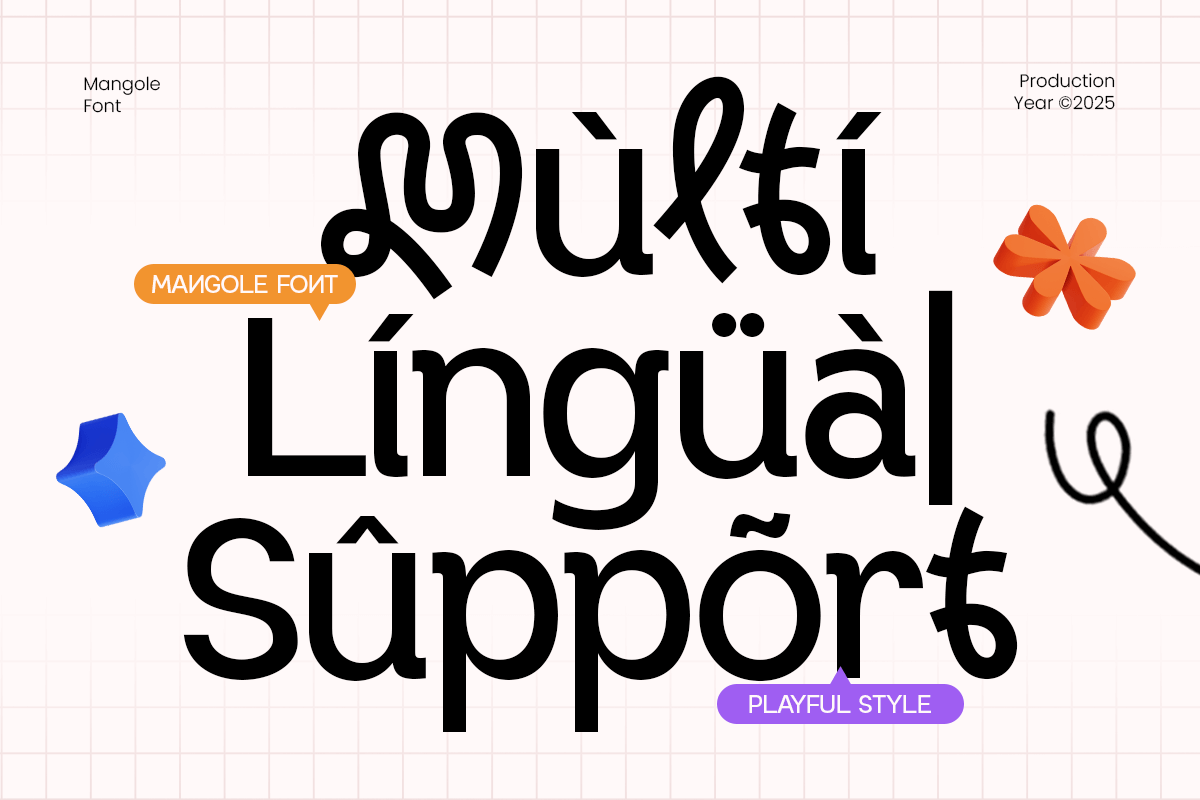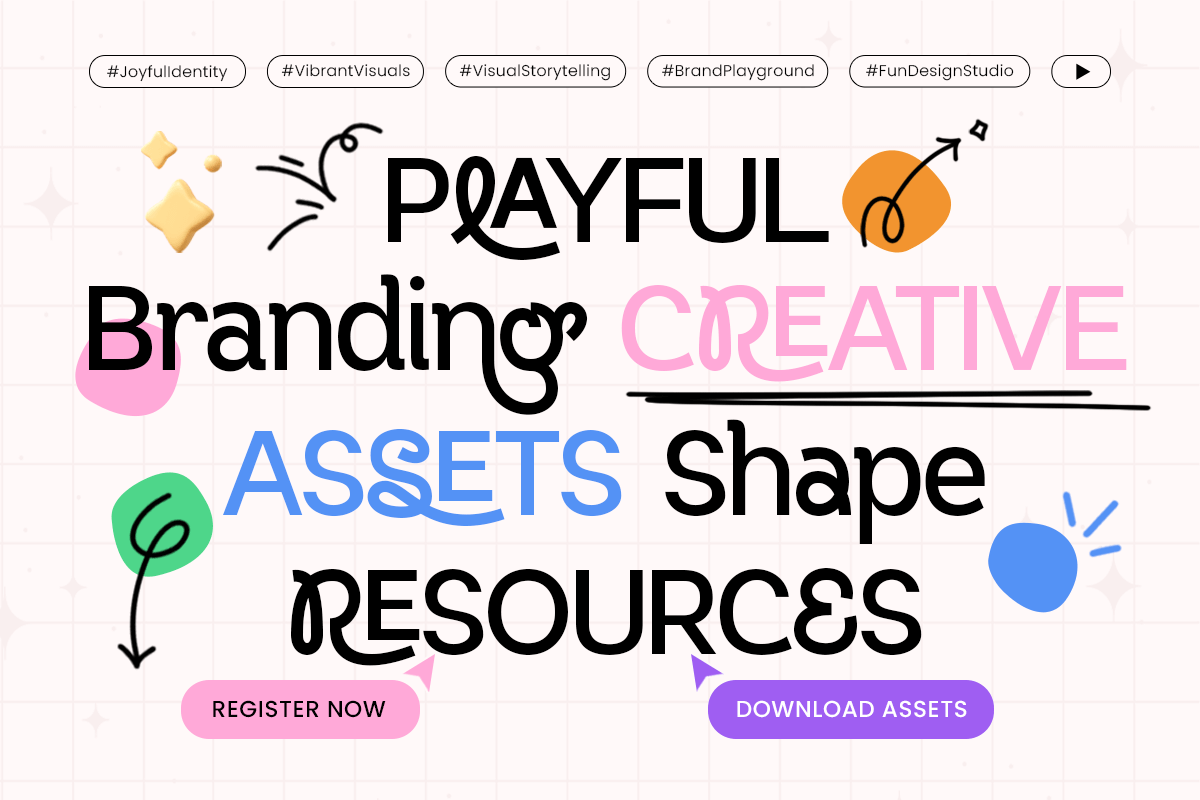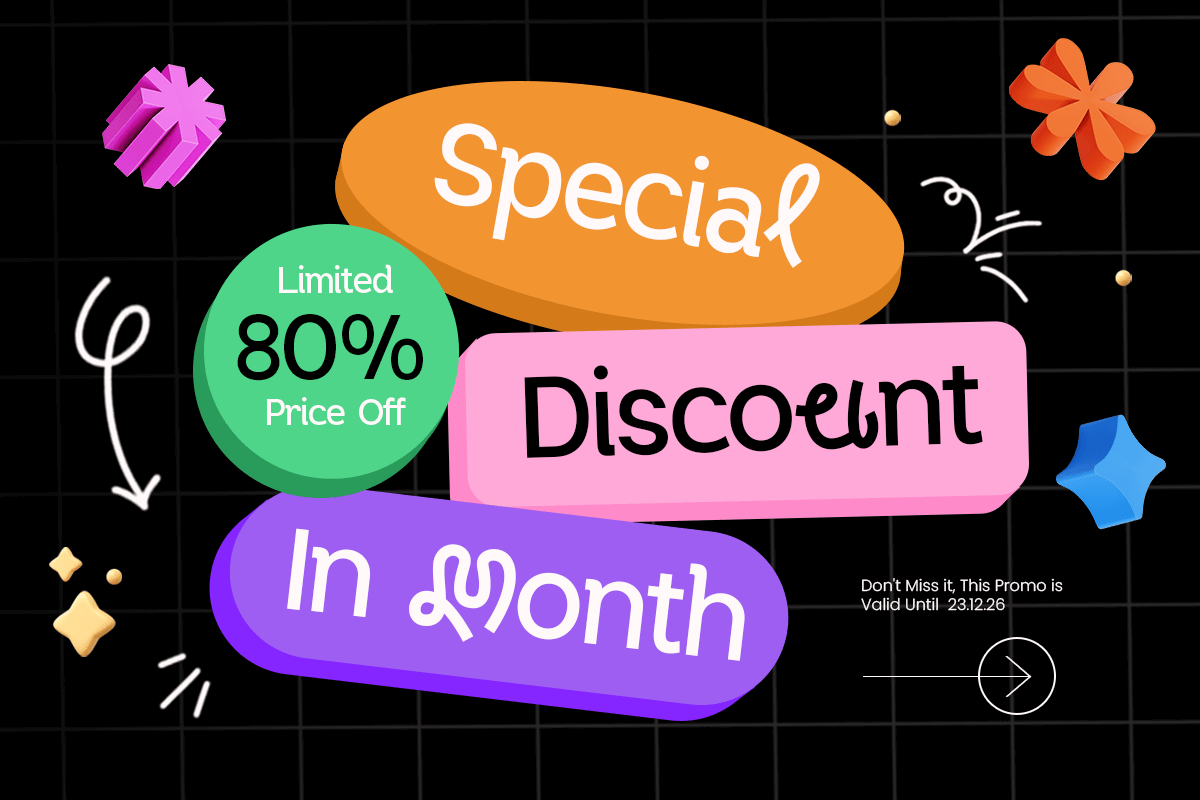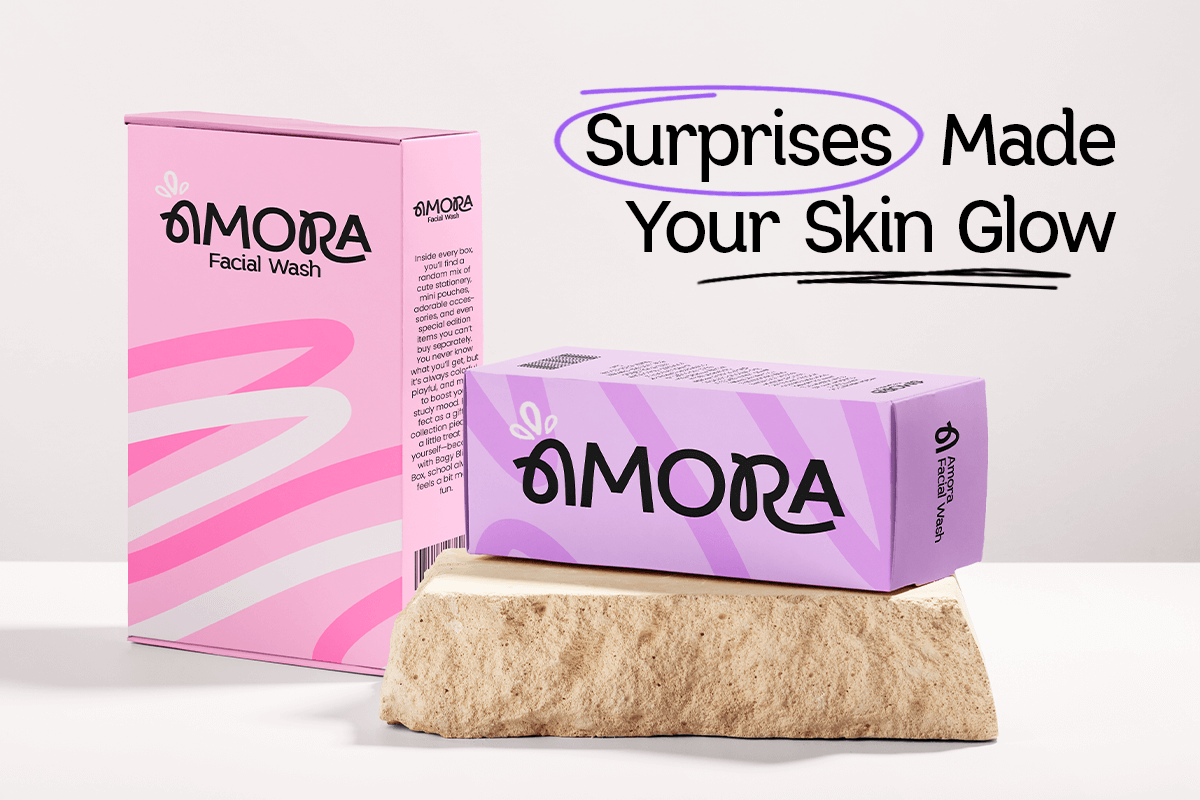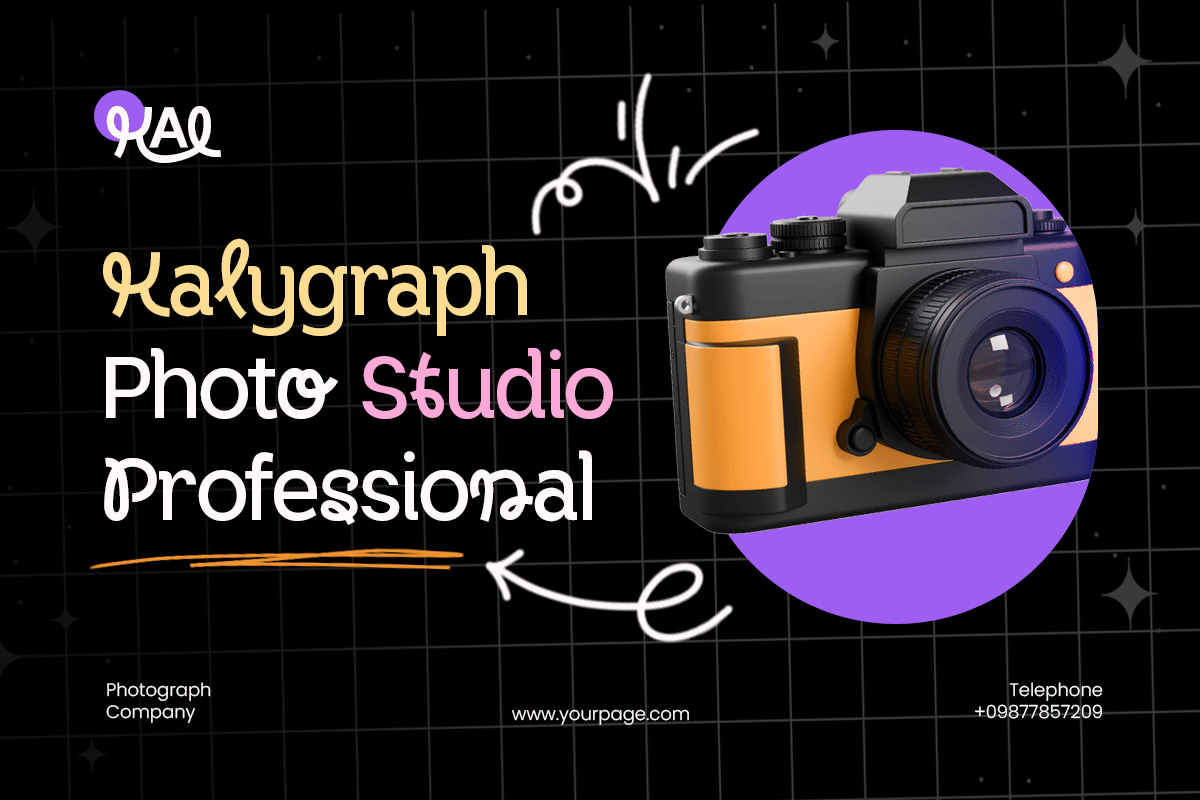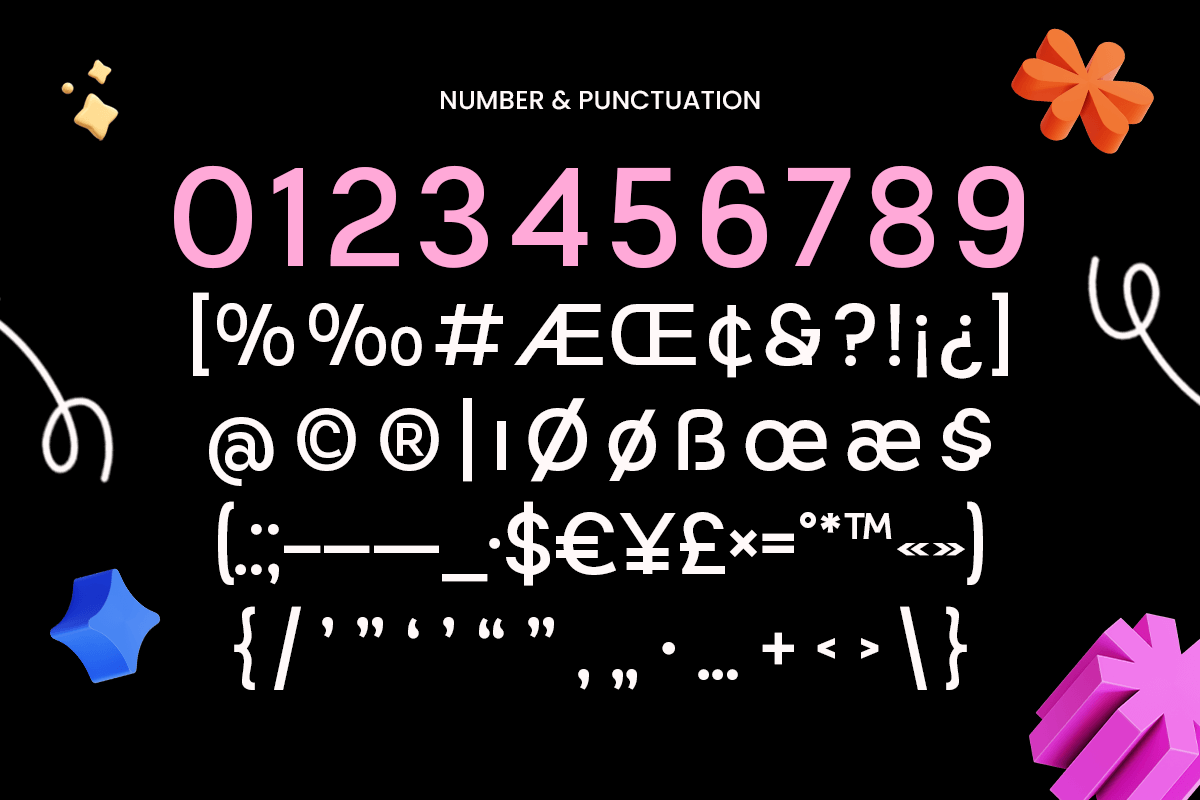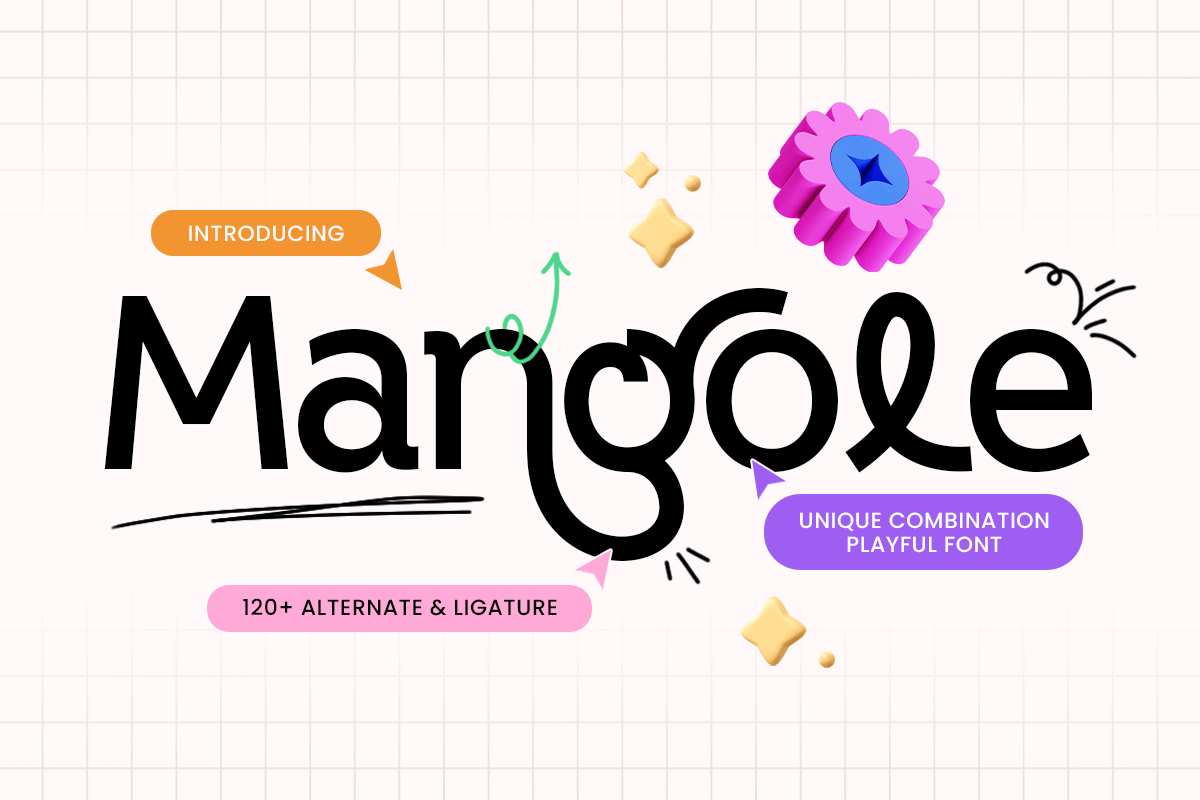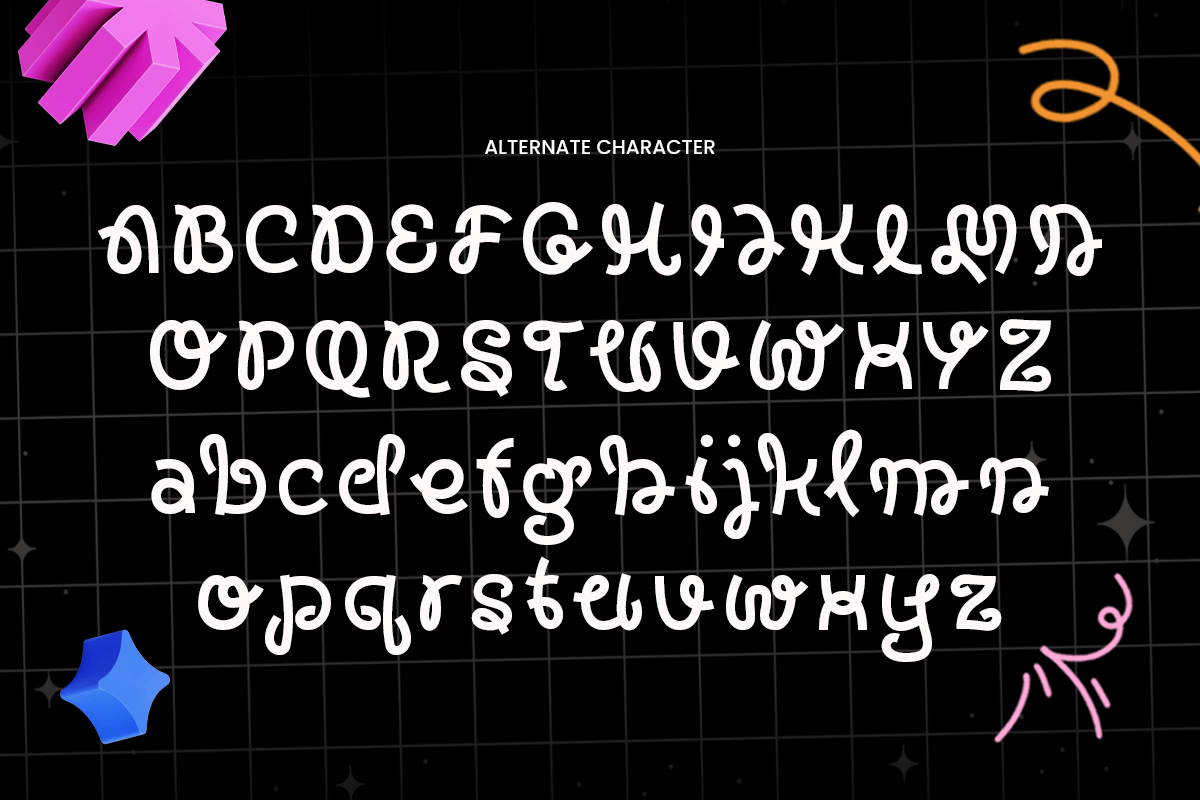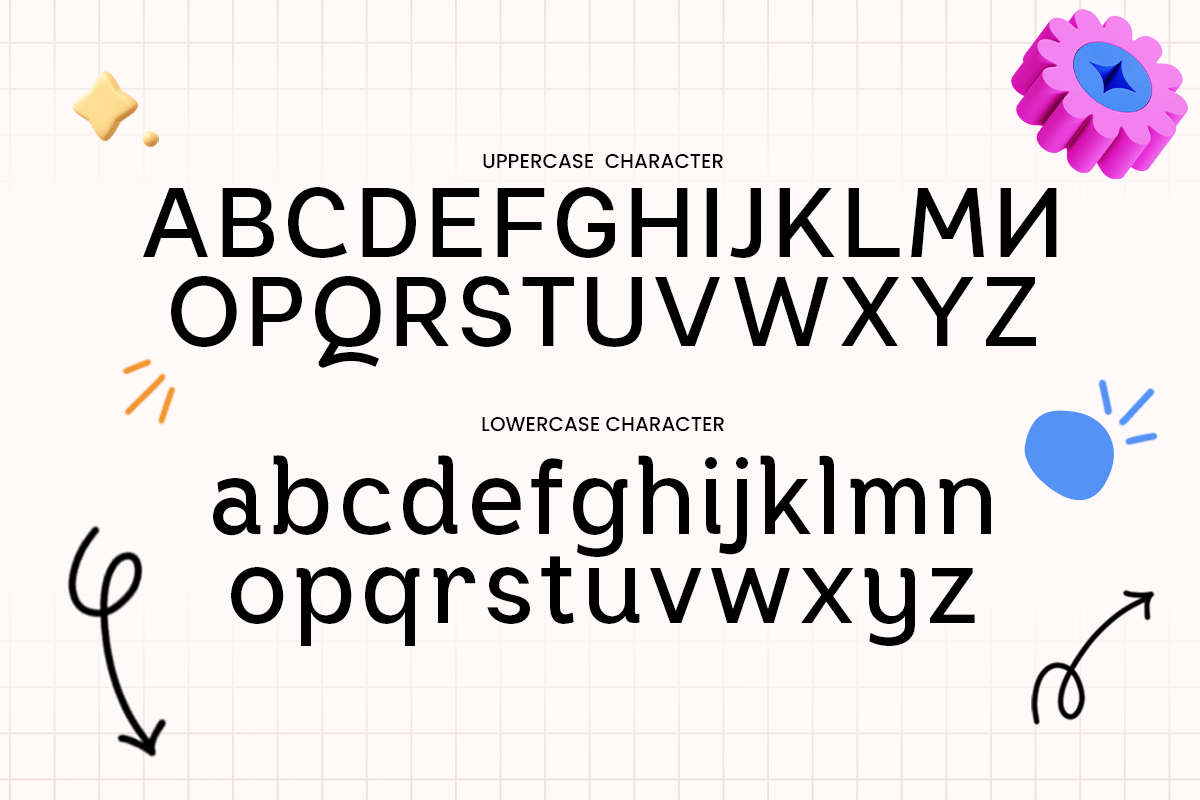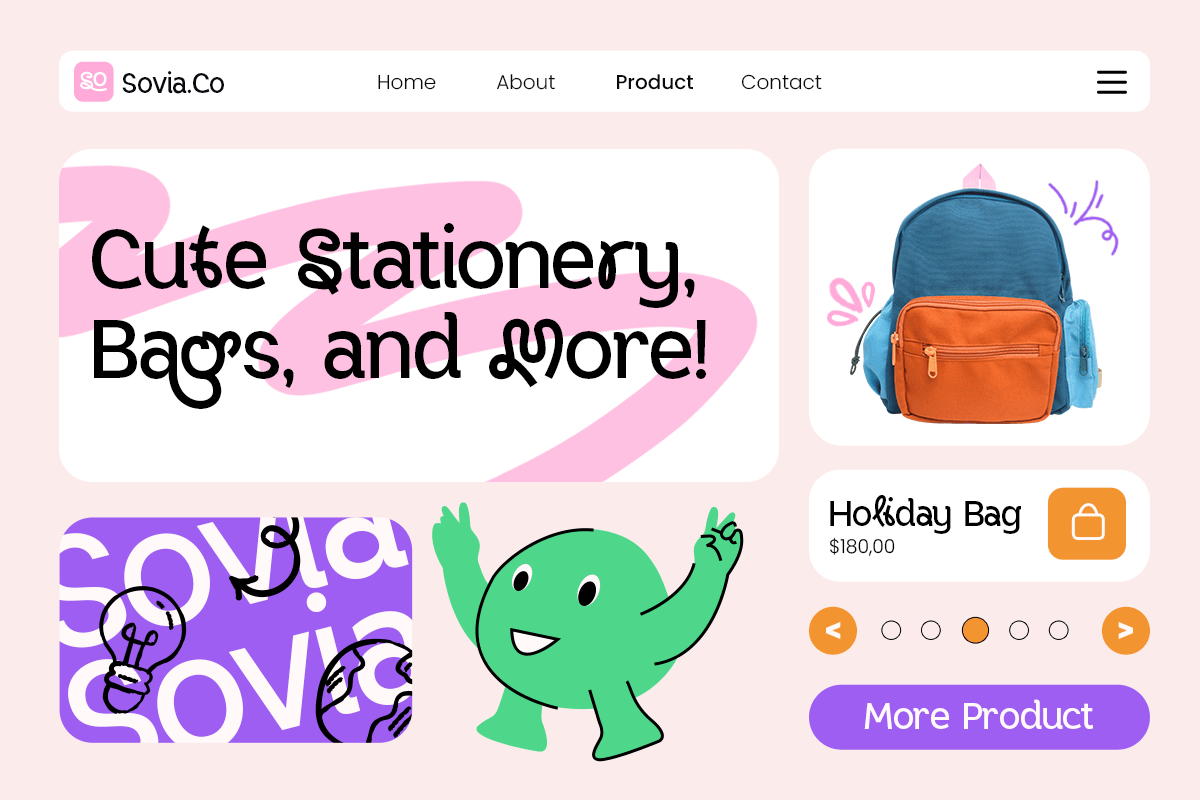
Mangole - Decorative Playful Font
Mangole – Unique Combination Playful Font
Mangole is a unique playful font that combines fun, quirky, and creative styles into one joyful typeface. Designed to spark imagination and positivity, Mangole is perfect for kids projects, playful branding, cartoons, packaging, posters, social media content, and any design that needs a cheerful and friendly touch.
With its expressive letterforms and lively character combinations, Mangole brings personality and warmth to your designs. This font is ideal for creative brands, children’s products, educational materials, and fun visual identities that want to stand out with charm and originality.
Mangole – Unique Combination Playful Font Features:
* Playful and fun display style with unique combinations
* Ideal for kids designs, creative branding, and joyful visuals
* Uppercase, lowercase, numerals, and punctuation included
* Smooth curves with expressive, friendly character shapes
* Perfect for creative, colorful, and imaginative projects
Bring happiness and creativity to your designs with Mangole – the playful font made to delight and inspire.